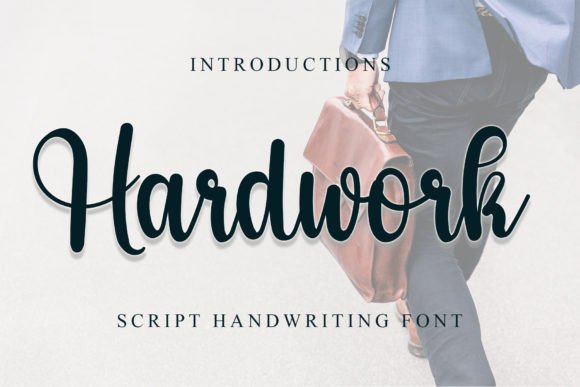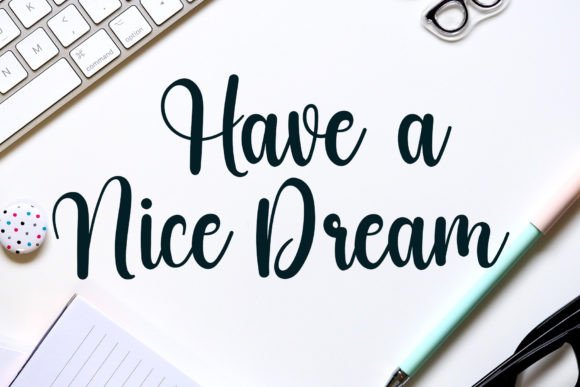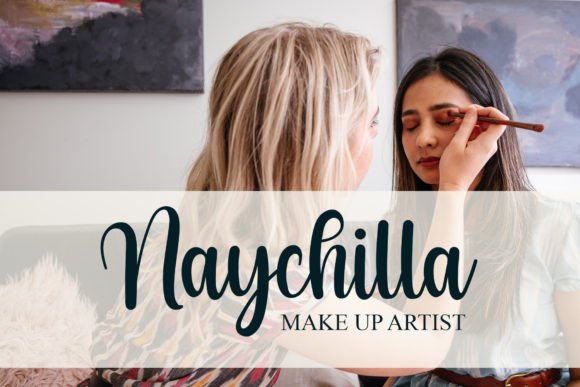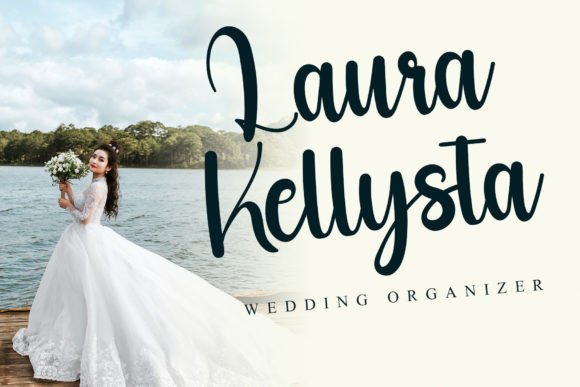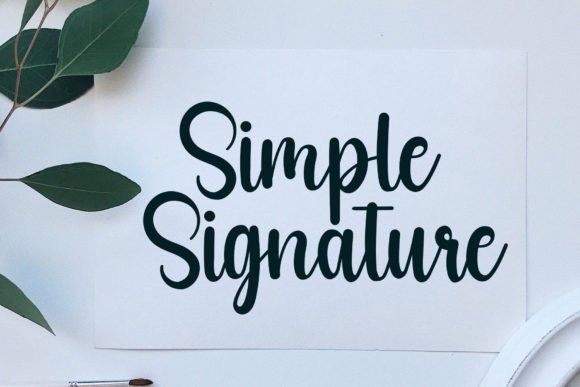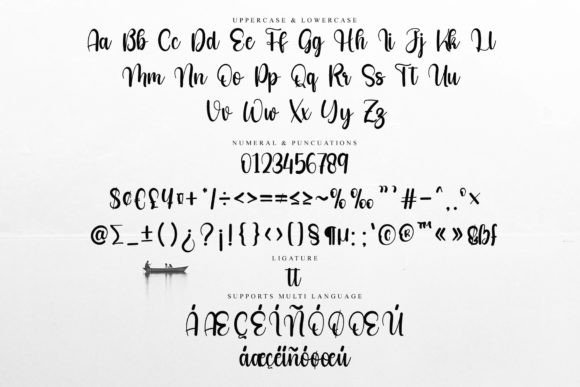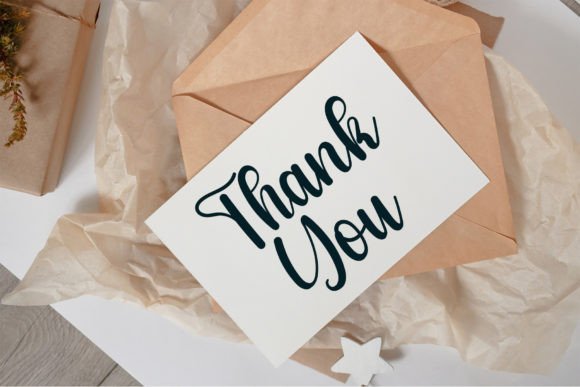
Hardwork Font
Add Style and Elegance with Hardwork Font
Hardwork Font is a stylish handwritten typeface inspired by timeless classic calligraphy. Its contemporary feel and impeccable form make it ideal for a wide variety of creative projects. Whether you want to design branding materials, invitations, or digital artwork, Hardwork Font brings a polished and elegant touch.
Moreover, its balanced and varied strokes give your work a harmonious and professional look. This means your designs will appear both beautiful and clear.
Many Uses for Hardwork Font
Hardwork Font fits well into many types of projects, such as:
• Brand logos and corporate identities
• Wedding and event invitations
• Product packaging and labels
• Posters, flyers, and promotional materials
• Social media graphics and marketing content
Its stylish calligraphic style adds a sense of tradition and modernity to your work.
Additionally, it features well-spaced letters and optimized kerning to keep your text readable and visually appealing at any size.
Why Designers Choose Hardwork Font
Many designers love HardworkFont because it combines classic elegance with modern design. It adds a personal and professional touch that enhances any creative project. Whether you are an expert or just starting, HardworkFont will help you produce beautiful and memorable designs.
Therefore, if you want a font that offers both style and clarity, HardworkFont is an excellent choice.